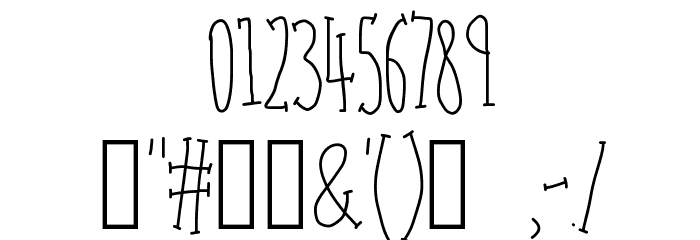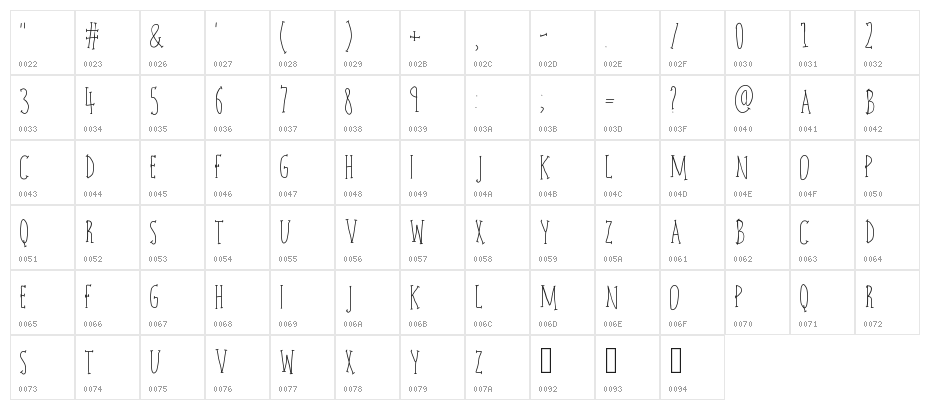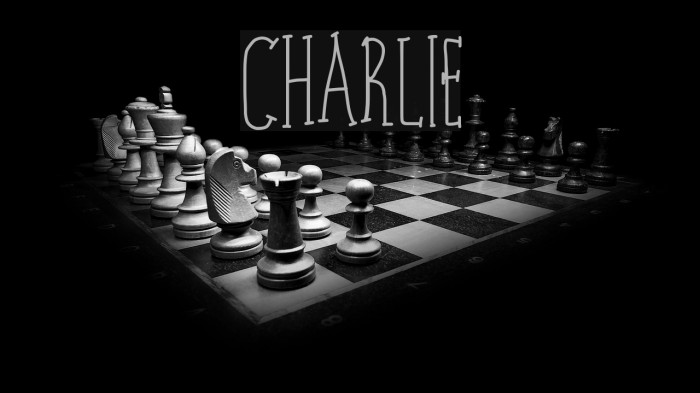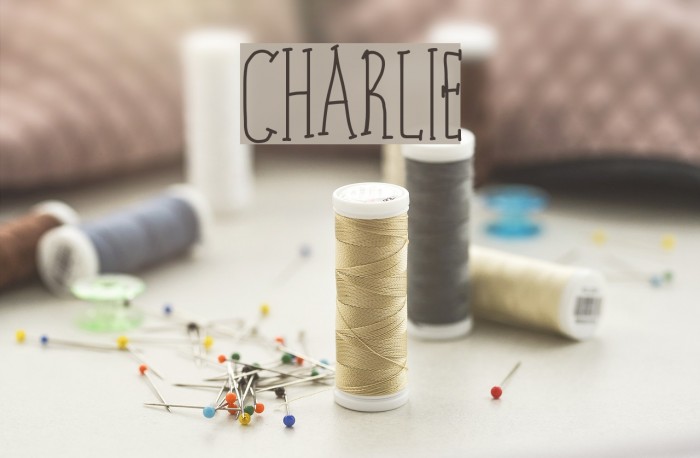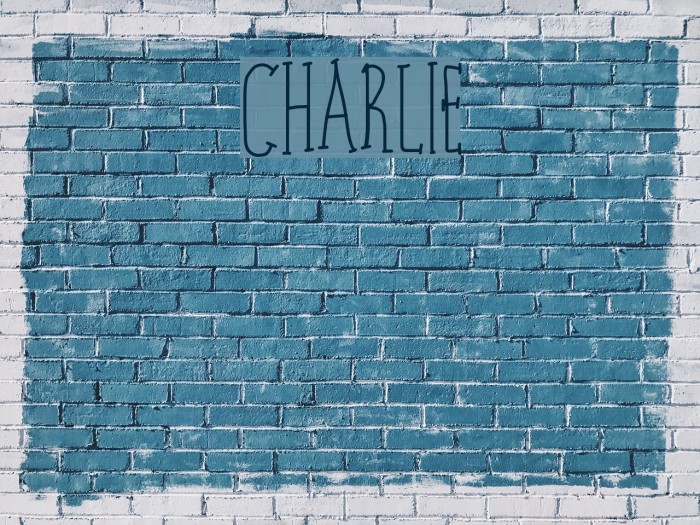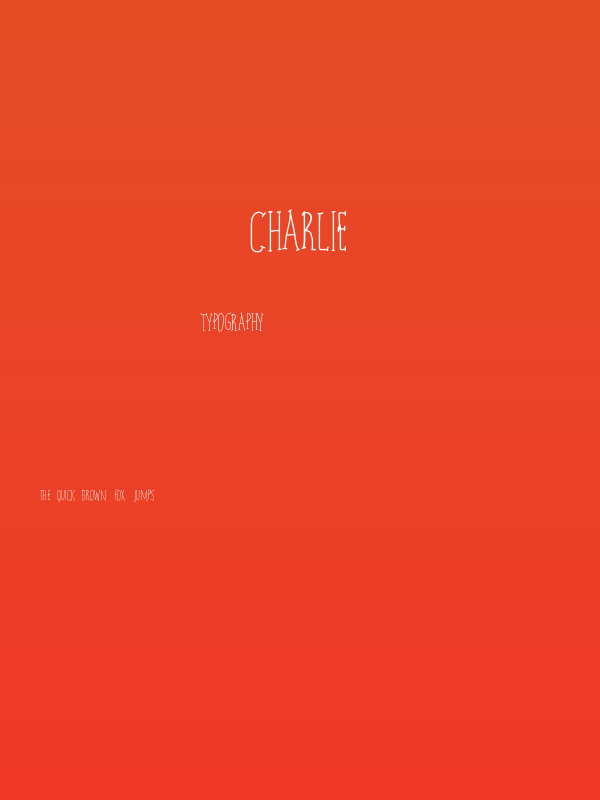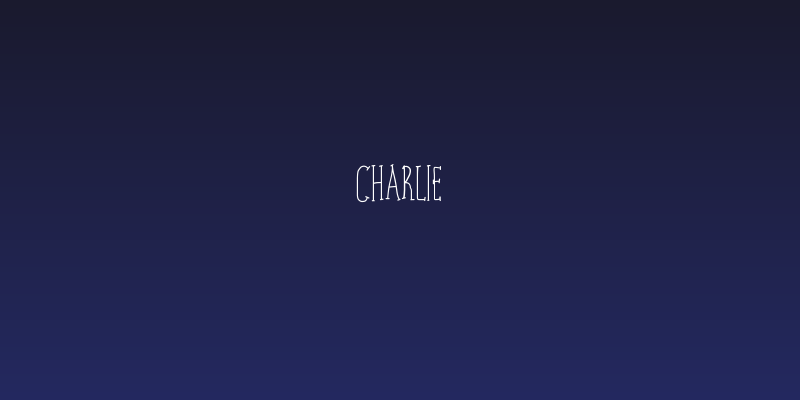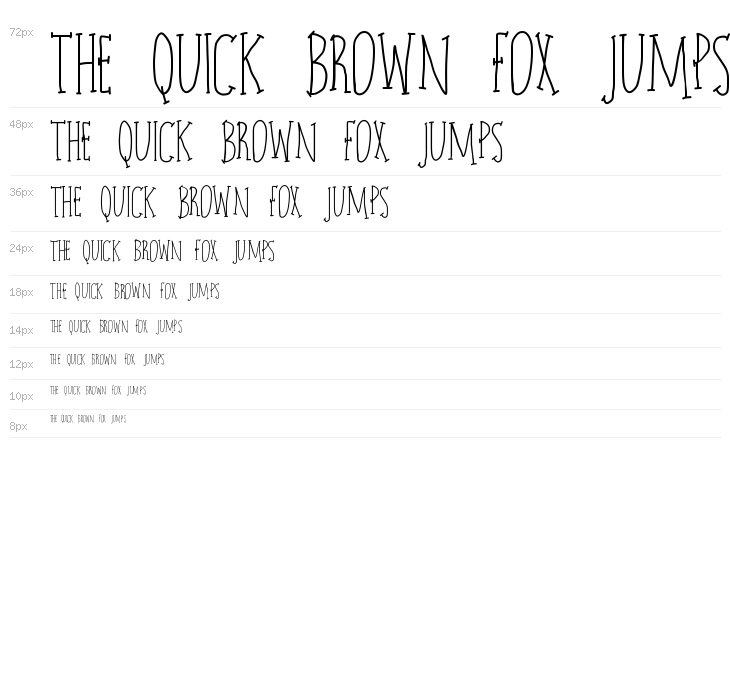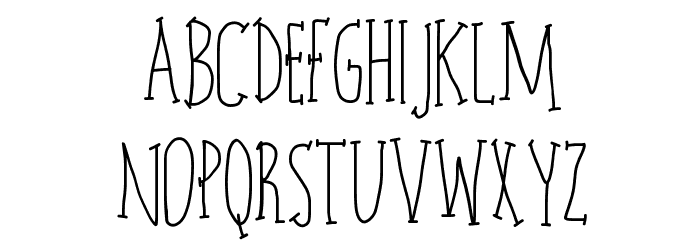
charlie Font
charlie Description
This font features a unique and artistic style with elongated, slightly irregular strokes that give it a whimsical and playful appearance. The uppercase letters are tall and narrow, with distinctive curves and angles that add character. The lowercase letters maintain a similar style, ensuring consistency throughout. Numbers are designed with the same playful touch, making them stand out. The special characters complement the overall design, adding to its decorative nature. This font is ideal for creative projects that require a touch of individuality and flair.